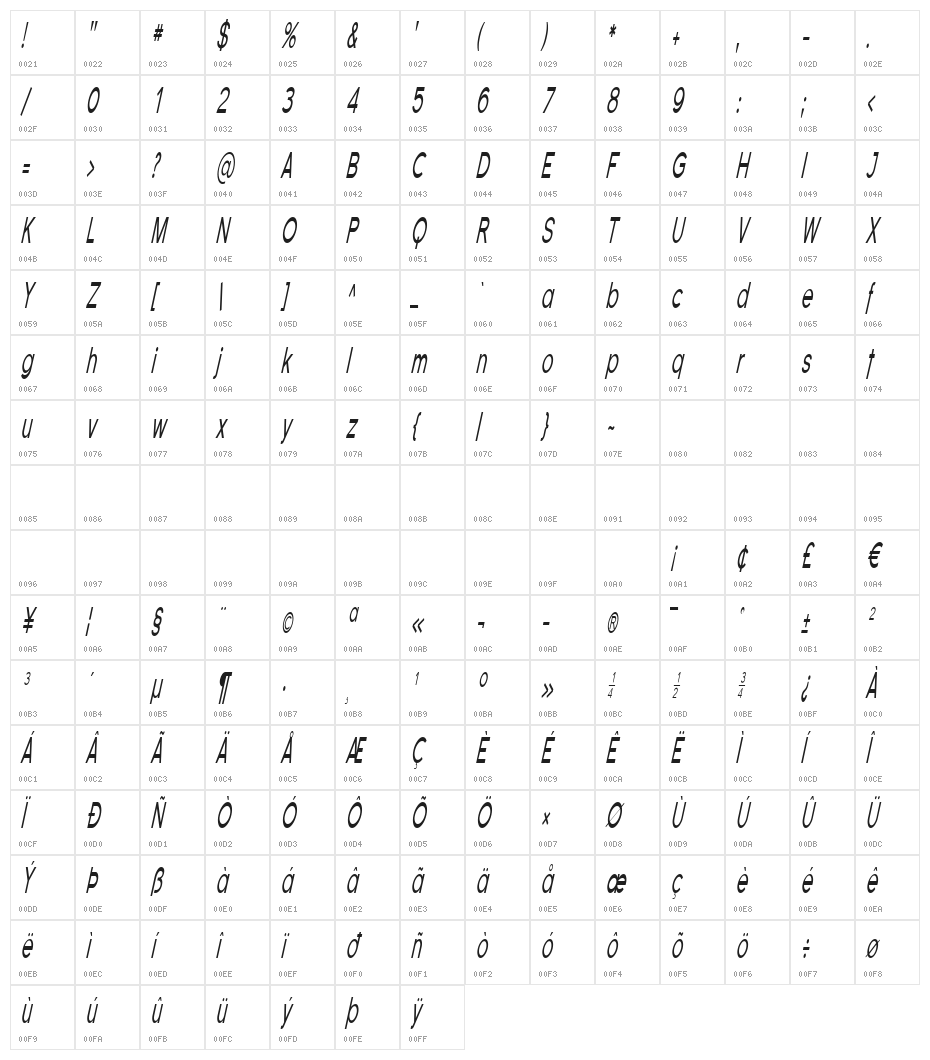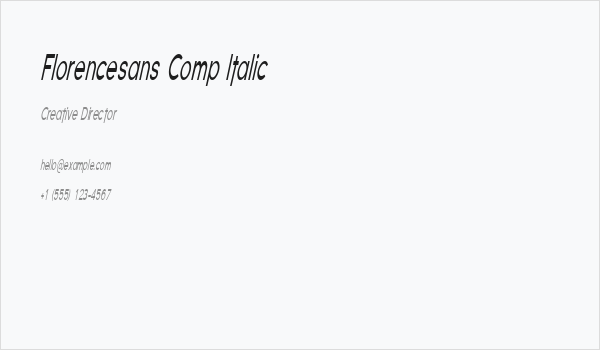
Florencesans Comp Italic Font
Florencesans Comp Italic Description
This font features a sleek and modern sans-serif design with a pronounced italic slant, giving it a dynamic and forward-leaning appearance. The characters are clean and streamlined, with consistent stroke widths that maintain a uniform look across both uppercase and lowercase letters. The numerals and special characters follow the same stylistic cues, ensuring a cohesive visual identity. The font's overall aesthetic is contemporary and professional, making it suitable for a variety of design applications where clarity and style are paramount.
| Proposed Projects | Ideal for branding, advertising, and editorial design where a modern and professional look is desired. |